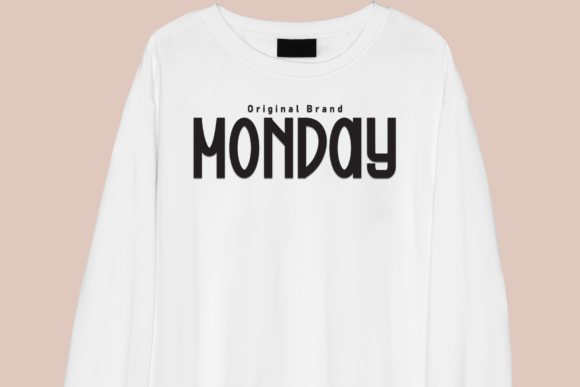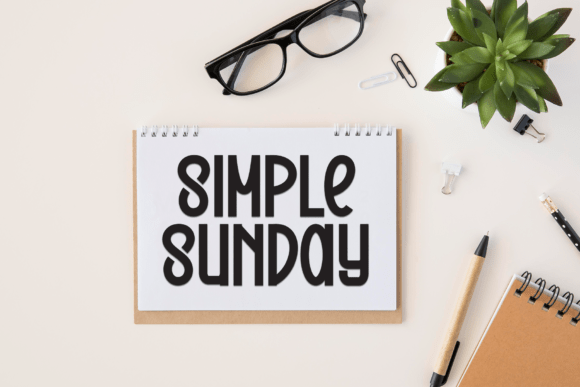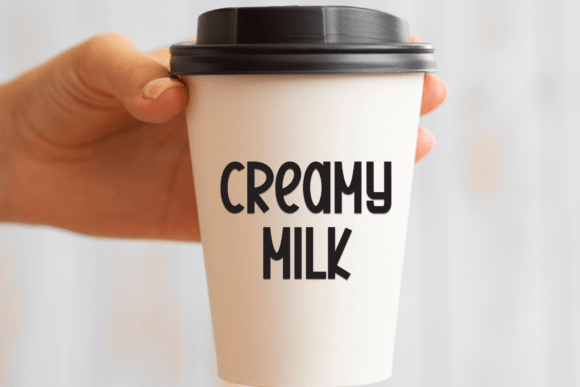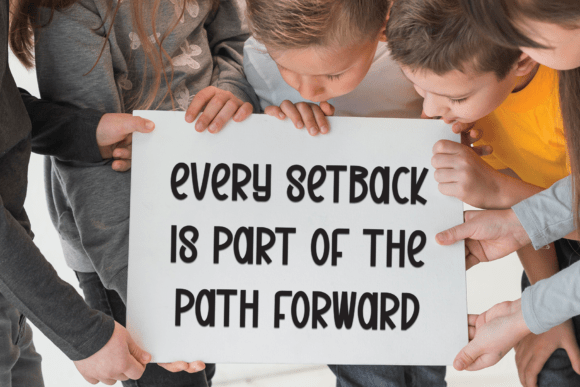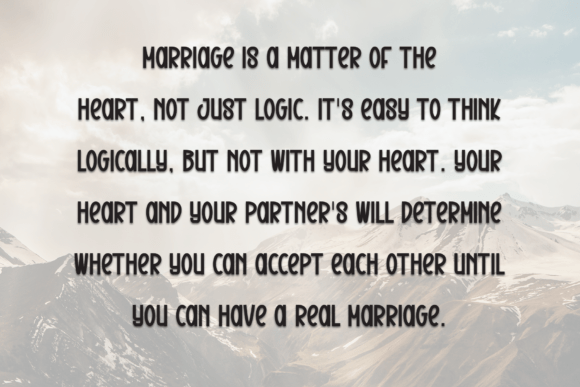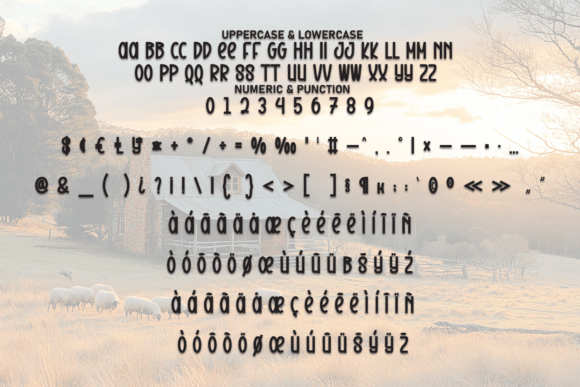
Introducing Farmhouse Font: The Perfect Blend of Elegance and Whimsy
Are you a designer, crafter, or DIY enthusiast looking for a font that can add a touch of sophistication and playfulness to your creative projects? Look no further than Farmhouse Font, a beautiful handwritten display font that is sure to captivate your audience. In this article, we’ll dive into the world of Farmhouse Font, exploring its unique features, uses, and benefits.
A Font that Exudes Elegance and Charm
Farmhouse Font is a stunning typeface that expertly blends dynamic personality with polished refinement. Its exquisite fusion of grace and fascination makes it the perfect choice for a variety of creative projects, from joyous wedding invitations to endearing greeting cards. With its captivating charm, this font is sure to engage your audience and leave a lasting impression.
What Makes Farmhouse Font So Special?
So, what sets Farmhouse Font apart from other fonts? Here are just a few of its unique features:
- Handwritten with love: Farmhouse Font is a handwritten display font, which means it has a personal and intimate feel that’s perfect for adding a touch of warmth and personality to your projects.
- Dynamic personality: This font has a lively and energetic vibe that’s sure to capture the attention of your audience.
- Polished refinement: Despite its playful nature, Farmhouse Font is also highly refined, making it suitable for a wide range of creative projects, from formal wedding invitations to more casual DIY crafts.
Uses for Farmhouse Font
Farmhouse Font is an incredibly versatile typeface that can be used in a variety of creative projects, including:
- Wedding invitations: Add a touch of elegance and whimsy to your wedding invitations with Farmhouse Font.
- Greeting cards: Create endearing greeting cards for special occasions, such as birthdays, anniversaries, and holidays.
- DIY crafts: Use Farmhouse Font to add a personal touch to your DIY crafts, such as scrapbooking, journaling, and paper crafting.
- Signage: This font is also perfect for creating eye-catching signage for events, businesses, or personal projects.
Benefits of Using Farmhouse Font
By incorporating Farmhouse Font into your creative arsenal, you’ll enjoy a range of benefits, including:
- Unique and distinctive: This font is sure to set your projects apart from the crowd, thanks to its unique and distinctive style.
- Easy to read: Despite its playful nature, Farmhouse Font is highly legible, making it easy for your audience to read and understand.
- Customizable: You can customize Farmhouse Font to suit your needs, adjusting the size, color, and style to fit your project’s requirements.
In conclusion, Farmhouse Font is a beautiful and versatile handwritten display font that’s perfect for designers, crafters, and DIY enthusiasts. With its unique blend of elegance and whimsy, this font is sure to captivate your audience and add a touch of sophistication to your creative projects. So why wait? Incorporate Farmhouse Font into your creative arsenal today and discover the magic for yourself!